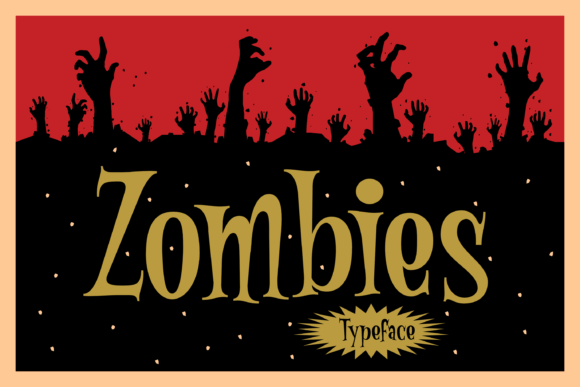
Journey into the realm of captivating designs with Zombies Font, a display font family that oozes retro horror charm and playful nostalgia. Its enchanting serif and bouncing design transcend the boundaries of horror, seamlessly blending into classic vintage aesthetics. Whether you're a seasoned designer or just starting your creative journey, Zombies Font is your perfect companion.
Unleash your imagination and let Zombies Font transport you to a world of eye-catching posters, captivating book covers, and enchanting children's books. Its versatility extends to merchandise, stickers, and apparel, adding a touch of retro joy to your creations. Craft unique invitations that exude personality or infuse your designs with a hint of playful nostalgia. With Zombies Font, the possibilities are endless.
Step into the realm of creative freedom with Zombies Font's PUA encoding, granting you effortless access to a universe of stunning glyphs and ligatures. Elevate your designs with a font crafted to make a statement.
Don't settle for ordinary. Embrace the extraordinary with Zombies Font. Dive into the world of retro horror charm and playful nostalgia. Let your creativity soar and watch your designs transform into masterpieces.